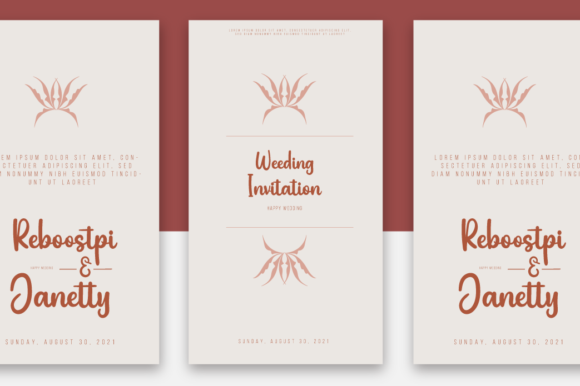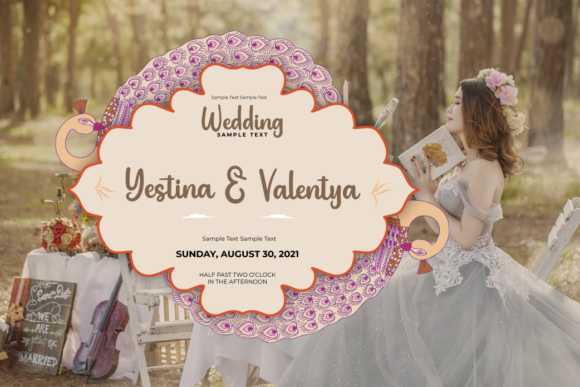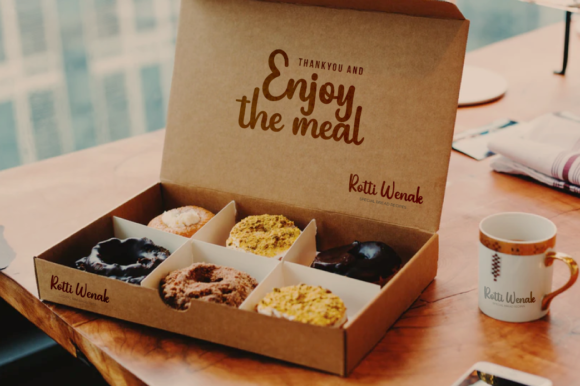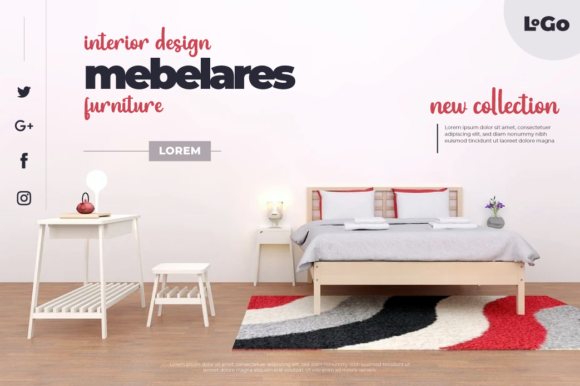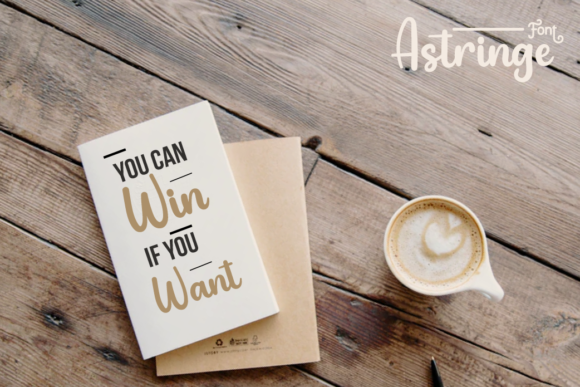
Astringe Font: The Cute Handwritten Font to Brighten Up Your Designs
Are you looking for a font that can add a touch of sweetness and playfulness to your designs? Look no further than Astringe Font! This adorable handwritten font is perfect for designers and crafters who want to create visually appealing and engaging content. In this article, we’ll dive into the world of Astringe Font and explore its features, benefits, and uses.
What is Astringe Font?
Astringe Font is a cute handwritten font that is designed to bring a smile to your face. Its sweet and full-of-life style makes it a wonderful choice for brightening up your designs. Whether you’re working on a project for a client or creating something for personal use, Astringe Font is sure to add a touch of whimsy and charm.
Features of Astringe Font
Astringe Font has several features that make it a standout choice for designers and crafters. Some of its key features include:
- Cute and playful design: Astringe Font has a sweet and playful design that is sure to capture the attention of your audience.
- Handwritten style: This font has a handwritten style that gives it a personal and authentic feel.
- Easy to read: Despite its playful design, Astringe Font is easy to read and can be used for a variety of applications, from headings to body text.
- Versatile: Astringe Font can be used for a wide range of projects, from digital content to print materials.
Benefits of Using Astringe Font
There are many benefits to using Astringe Font in your designs. Some of the top benefits include:
- Adds a touch of personality: Astringe Font can add a touch of personality to your designs, making them more engaging and relatable.
- Creates a playful atmosphere: This font can help create a playful atmosphere in your designs, making them more enjoyable to look at and interact with.
- Perfect for creative projects: Astringe Font is perfect for creative projects, such as crafting, scrapbooking, and DIY tutorials.
- Easy to pair with other fonts: Astringe Font can be easily paired with other fonts to create a unique and visually appealing design.
Uses of Astringe Font
Astringe Font can be used for a wide range of projects, including:
- Digital content: Use Astringe Font to create engaging digital content, such as blog posts, social media graphics, and email newsletters.
- Print materials: This font can be used for print materials, such as brochures, flyers, and business cards.
- Crafting and scrapbooking: Astringe Font is perfect for crafting and scrapbooking projects, such as journaling, card making, and paper crafting.
- DIY tutorials: Use Astringe Font to create visually appealing DIY tutorials, such as sewing, knitting, and cooking tutorials.
Tips for Using Astringe Font
Here are some tips for using Astringe Font in your designs:
- Use it sparingly: Astringe Font is a playful font, so use it sparingly to avoid overwhelming your design.
- Pair it with other fonts: Pair Astringe Font with other fonts to create a unique and visually appealing design.
- Experiment with colors: Experiment with different colors to find the perfect combination for your design.
- Have fun: Most importantly, have fun with Astringe Font! Its playful design is meant to bring joy and creativity to your designs.
Astringe Font is a cute and playful handwritten font that is perfect for designers and crafters who want to add a touch of sweetness and whimsy to their designs. With its easy-to-read design and versatile uses, Astringe Font is a great choice for a wide range of projects. Whether you’re working on a digital project or a print material, Astringe Font is sure to bring a smile to your face and creativity to your designs.